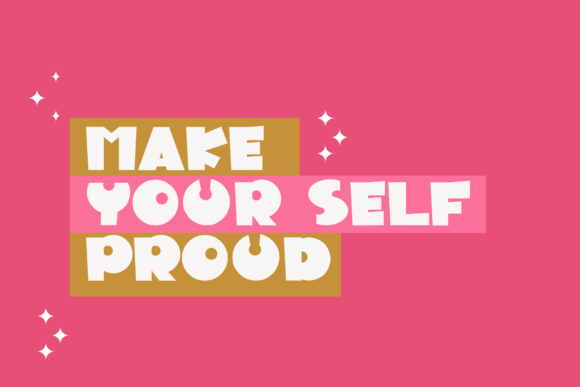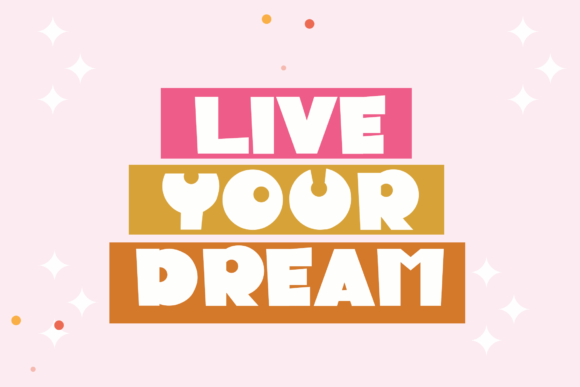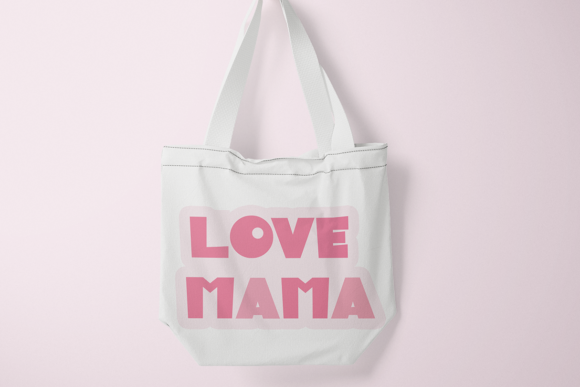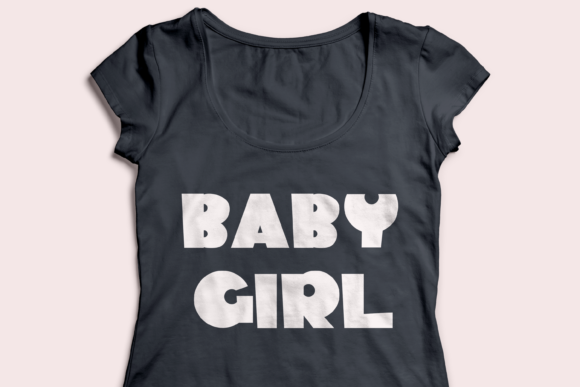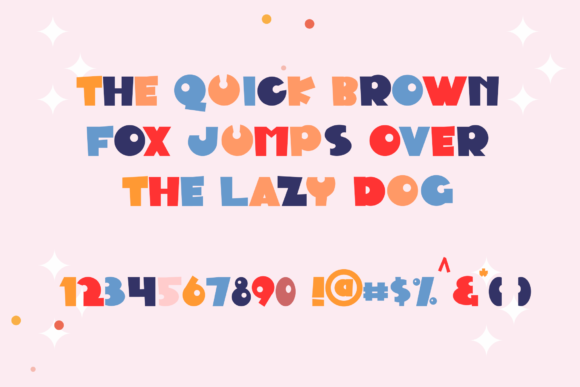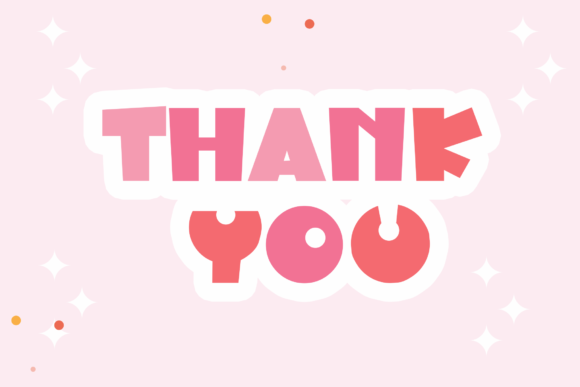
Introducing Happy Day Font: The Ultimate Display Font for Fun and Creativity
Are you tired of using the same old fonts for your designs, crafts, and presentations? Look no further! Happy Day Font is here to bring a burst of joy and excitement to your creative projects. This fun and thick lettered display font is perfect for anyone looking to add a personal touch to their work. Whether you’re a designer, crafter, or simply someone who loves making greeting cards, Happy Day Font is sure to become your new favorite go-to font.
What Makes Happy Day Font So Special?
Happy Day Font is a unique and versatile font that can be used for a wide range of projects. Its thick, bold letters make it perfect for creating eye-catching headlines, titles, and captions. The font’s playful and cheerful vibe makes it ideal for designs that require a friendly and approachable tone. Whether you’re creating a digital design, crafting a handmade card, or making a presentation, Happy Day Font is sure to add a touch of happiness and whimsy to your work.
Key Features of Happy Day Font
• Fun and playful design: Happy Day Font features a unique and playful design that’s sure to grab attention.
• Thick and bold letters: The font’s thick, bold letters make it perfect for creating eye-catching headlines and titles.
• Versatile and adaptable: Happy Day Font can be used for a wide range of projects, from digital designs to handmade crafts.
• Easy to read: Despite its bold and playful design, Happy Day Font is easy to read and understand.
Uses for Happy Day Font
Happy Day Font is a versatile font that can be used for a wide range of projects. Here are some ideas to get you started:
• Crafts: Use Happy Day Font to add a personal touch to your handmade crafts, such as greeting cards, scrapbook pages, and DIY decorations.
• Digital design: Happy Day Font is perfect for digital designs, such as social media graphics, blog posts, and website headers.
• Presentations: Add a touch of personality to your presentations with Happy Day Font.
• Greeting cards: Use Happy Day Font to create fun and playful greeting cards for special occasions.
Why Designers and Crafters Love Happy Day Font
Happy Day Font has quickly become a favorite among designers and crafters. Here are some reasons why:
• Unique design: Happy Day Font features a unique and playful design that’s sure to stand out.
• Versatile: Happy Day Font can be used for a wide range of projects, making it a great addition to any design or crafting toolkit.
• Fun and playful: The font’s playful and cheerful vibe makes it perfect for designs that require a friendly and approachable tone.
In conclusion, Happy Day Font is a fun and versatile display font that’s perfect for designers, crafters, and anyone looking to add a personal touch to their creative projects. Its unique and playful design, thick and bold letters, and easy-to-read style make it a great choice for a wide range of projects. Whether you’re creating digital designs, handmade crafts, or presentations, Happy Day Font is sure to become your new favorite go-to font.